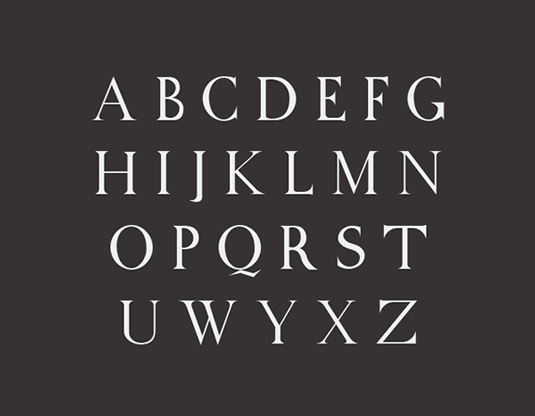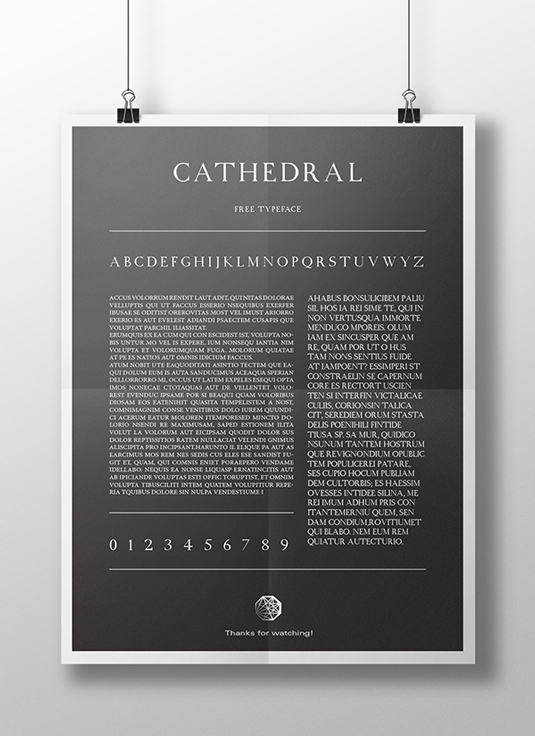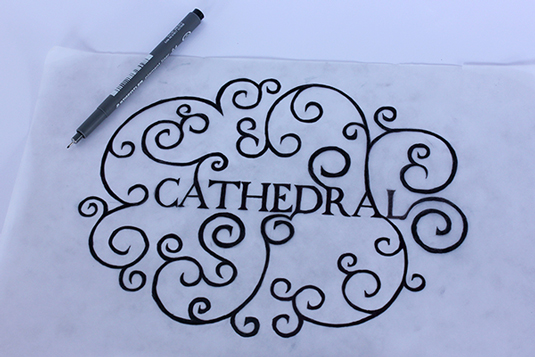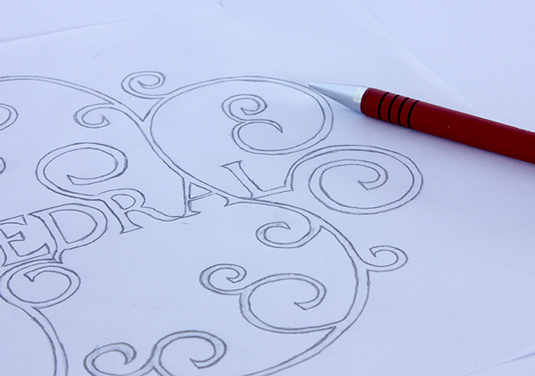
Font of the day: Cathedral
Cathedral by Mariagrazia Marino
Add a touch of elegance to your designs with today's typeface of choice, Cathedral by graphic design student Mariagrazia Marino. Free for both personal and commercial use, Cathedral can be downloaded over on Behance.